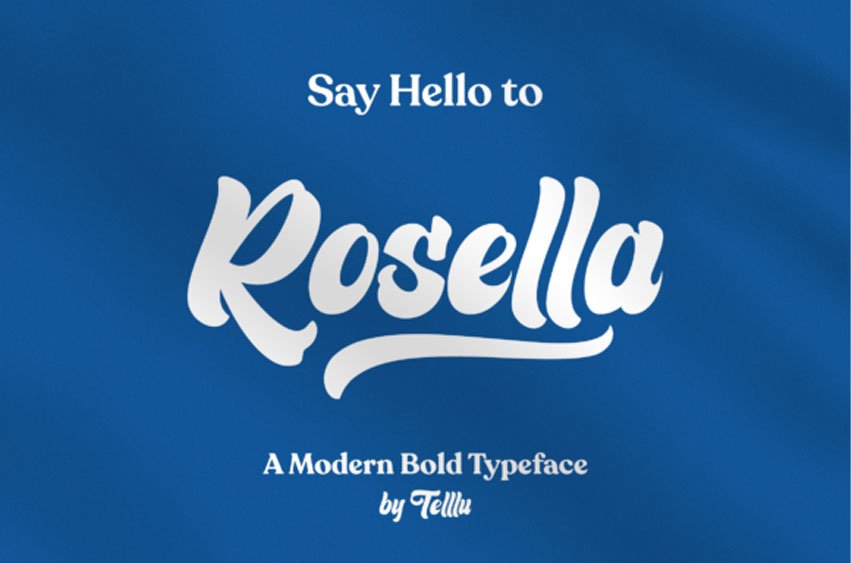
Rosella Font
Rosella Font is a unique bold display font with extra swashes. This fantastic font is best suited for headlines of all sizes, as well as for blocks of text that have both maximum and minimum variations.
Whether it’s for web, print, moving images or anything else – Rosella will look spectacular.